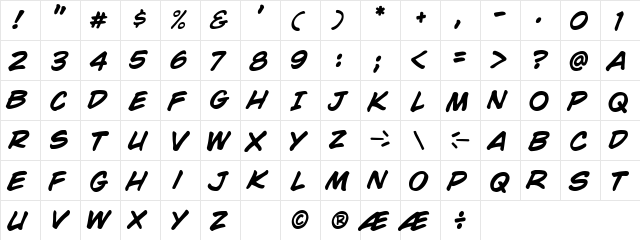
CC Wild Words Bold Italic
Design Context for CC Wild Words Typeface
CC Wild Words takes a measured approach to typography — its balanced proportions and neutral character make it a reliable workhorse for both digital and print work. Its italic angle brings a sense of urgency and motion to the letterforms. The heavy weight commands attention and anchors typographic hierarchies.
Pro Tip: Try CC Wild Words for annotation and caption copy alongside an upright companion — the contrast in angle creates a dynamic but ordered typographic system.